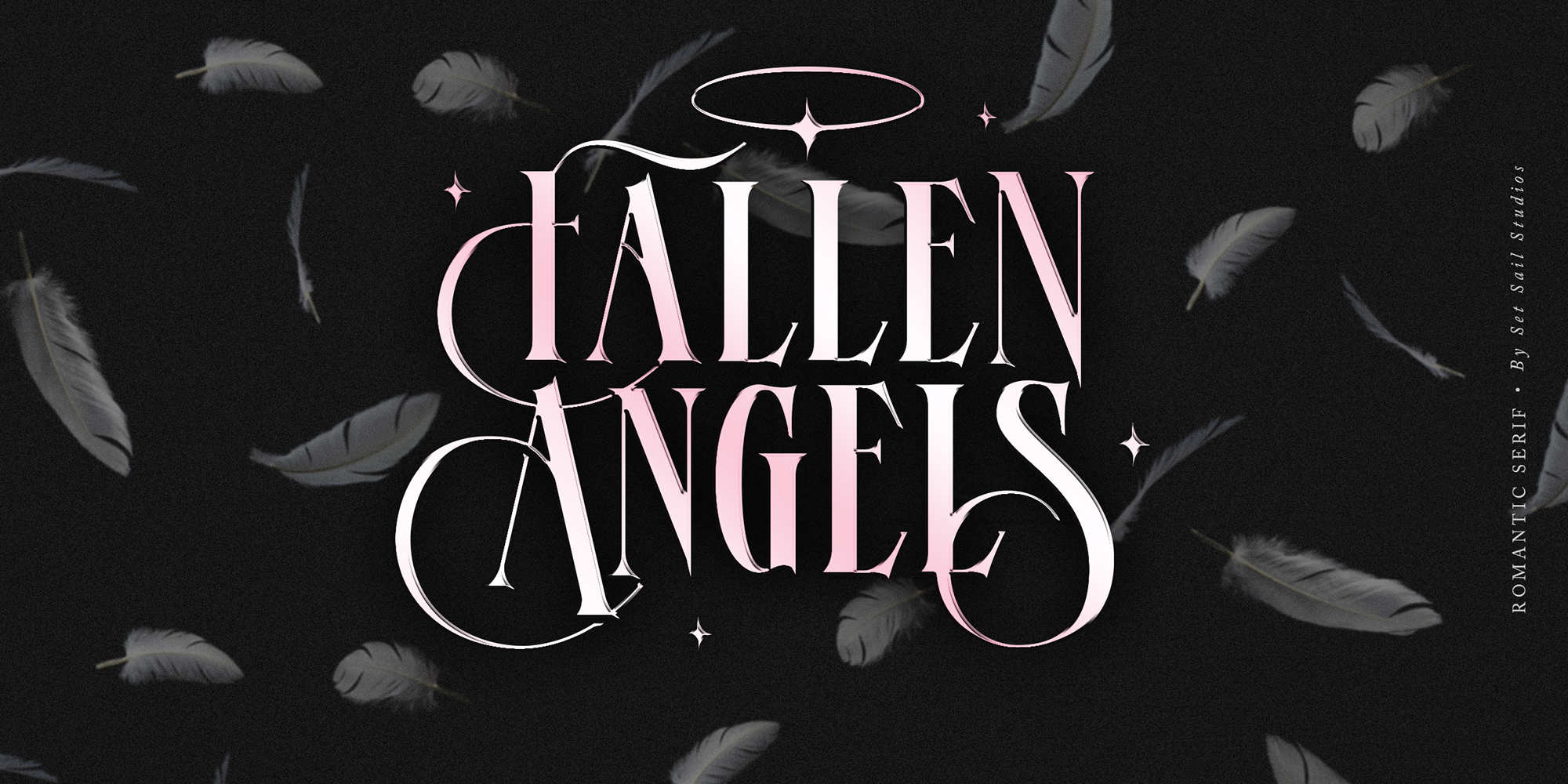
Unleash dark celestial elegance with Fallen Angels Font Free Download – a gothic-inspired typeface that blends heavenly grace with rebellious edge. This striking display font features dramatic tapered strokes and subtle celestial motifs, perfect for projects needing divine contrast between purity and darkness.
Why Fallen Angels Font Stands Out
Fallen Angels Font Free Download delivers:
Contrasting thick/thin celestial letterforms
Perfect balance of elegance and edge
Hidden angelic symbolism in glyph details
Versatile applications from gothic to luxury
Fallen Angels Font Free Download Technical Features:
Uppercase characters with divine proportions
Numbers and esoteric punctuation
Includes wing-inspired alternates
Optimized for large-scale applications
Heavenly/Dark Applications:
Gothic fashion branding
Fantasy book titles
Luxury perfume packaging
Metal band merchandise
Tarot/occult designs
Design Tip: Layer with marble textures and metallic inks for divine/monastic contrast!